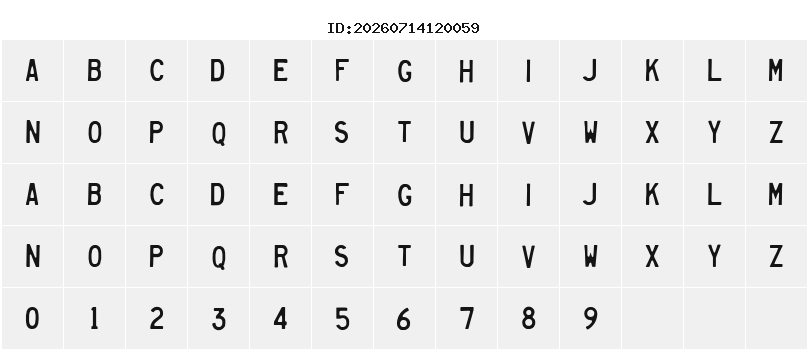
Heavy Equipment.ttf is a modern, elegant sans-serif font designed for ultimate readability and visual harmony. Perfect for branding, headlines, web design, and print materials.